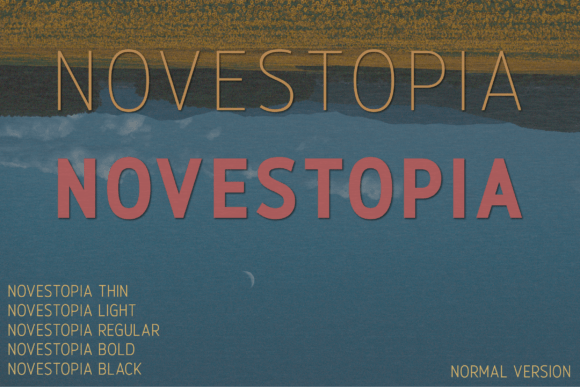
Welcome to the world of Novestopia Font, where elegance meets minimalism in perfect harmony. This sans serif font family is a tour de force of sophistication, effortlessly weaving modern aesthetics with a touch of timeless charm.
Unleash your creativity with five distinct weights, each meticulously crafted to adapt to a diverse range of design projects. Seamlessly navigate from delicate and airy thin lines to bold and striking black, allowing for limitless expression.
Imagine your designs adorned with the sleek lines and graceful curves of Novestopia. Create a magazine that exudes sophistication, a logo that radiates luxury, or a film poster that captivates audiences with its timeless allure.
Novestopia is the perfect harmony between modernity and tradition, allowing your designs to transcend time and trends. Experience the elegance of simplicity and the power of minimalism as your creations come to life with Novestopia.
Embark on a journey of design excellence and unlock the full potential of your creative vision. Embrace the allure of Novestopia today and elevate your designs to new heights of sophistication and grace.